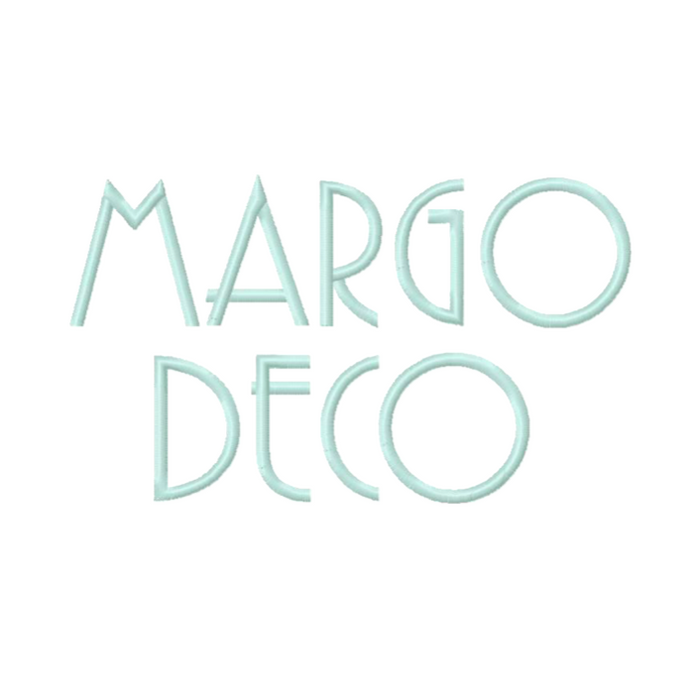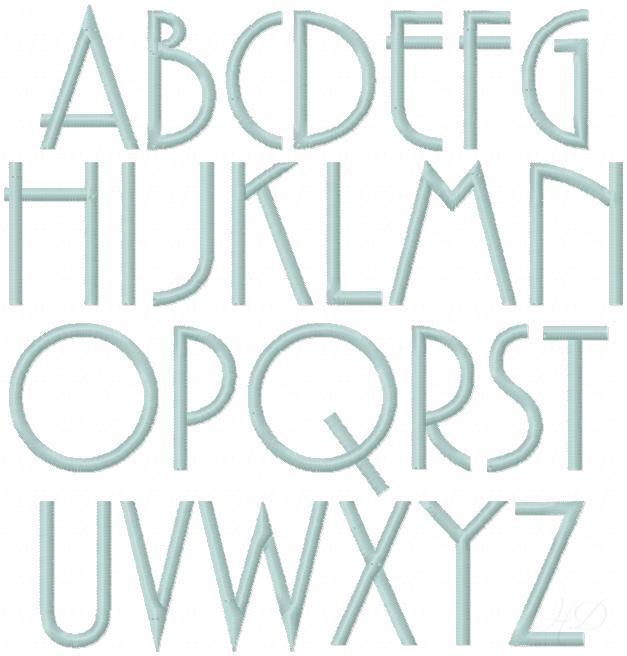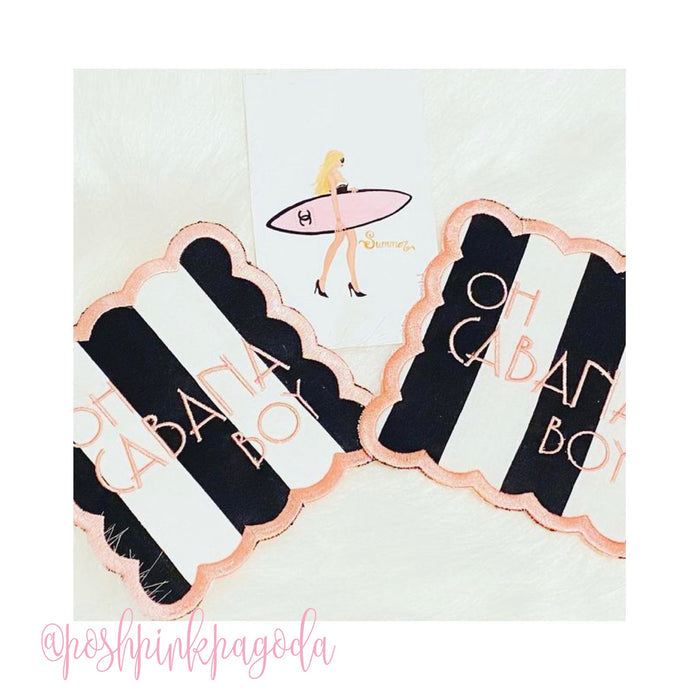
Margo Satin Embroidery Font for Monogramming
Unleash your creativity with the Margo Satin Embroidery Font, designed specifically for machine monogramming enthusiasts. This elegant font package features 26 uppercase letters in 7 sizes, ensuring it fits perfectly within a 4x4 hoop. Whether you're personalizing gifts or enhancing DIY projects, Margo offers versatile options for any crafting need.